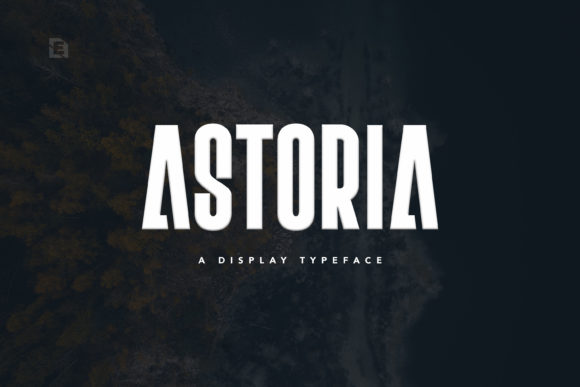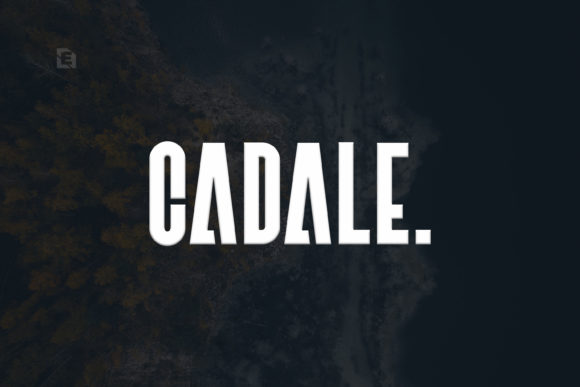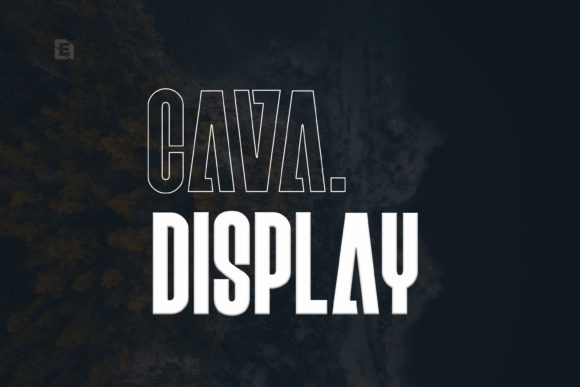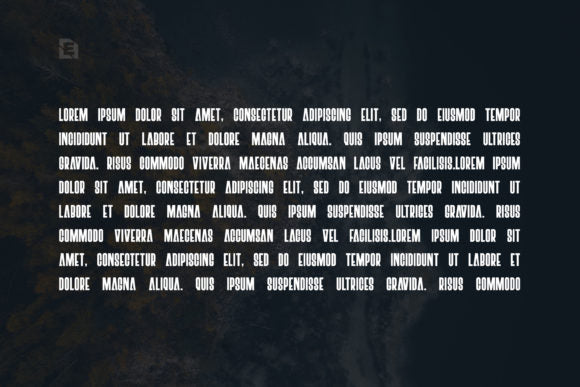
Astoria Typeface
Astoria is a unique and modern display typeface perfect for headlines, big text, branding, logotypes & display usage. This font is the perfect choice for creating outstanding logos, promotional content, and marketing graphics.